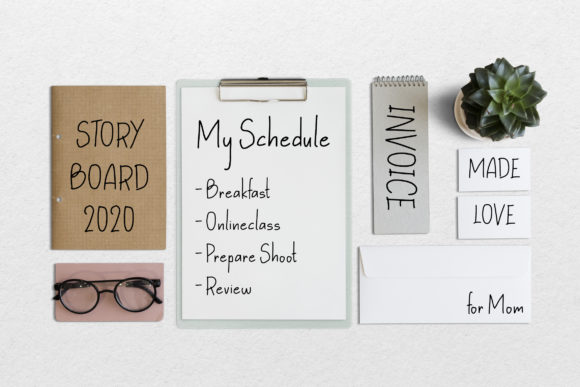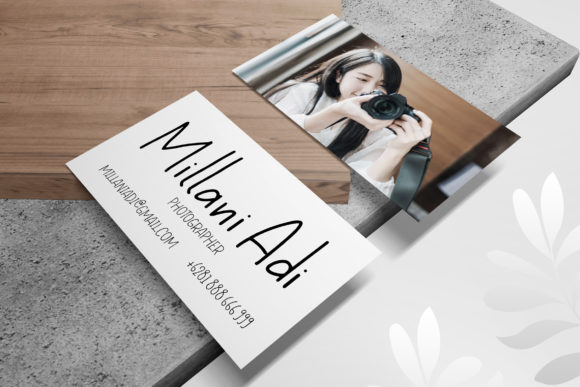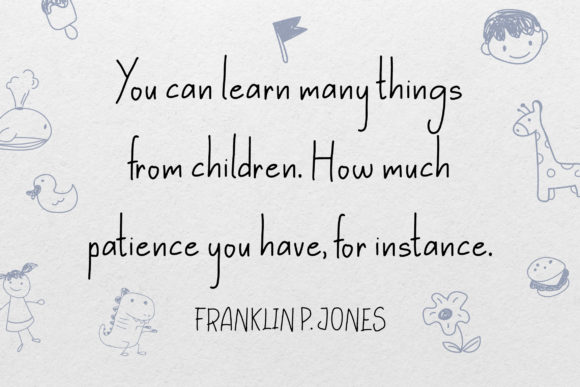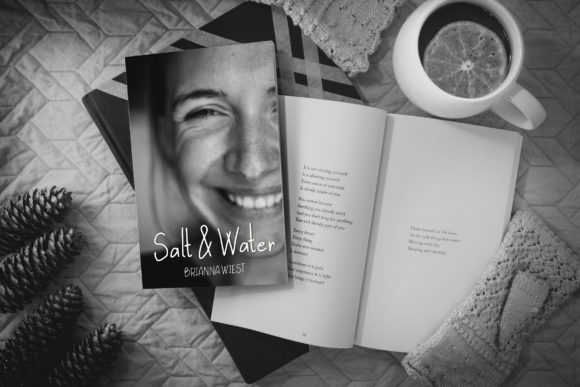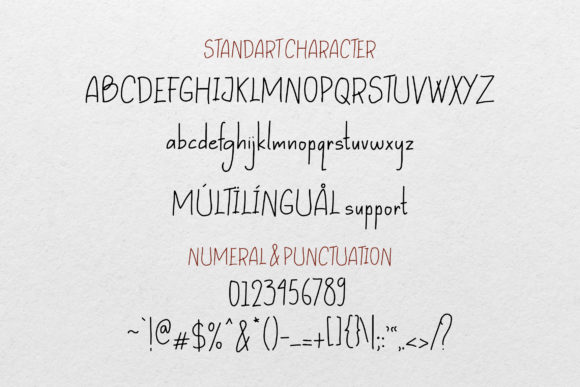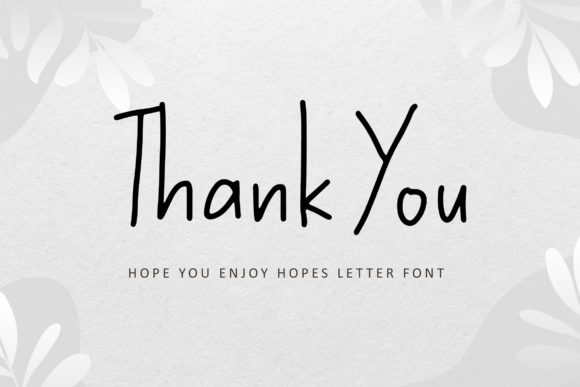
Hopes Letter Font
About Hopes Letter Font
Hopes Letter is a natural handwritten font. No matter the topic, this font will be an incredibly asset to your fonts’ library, as it has the potential to elevate any creation.